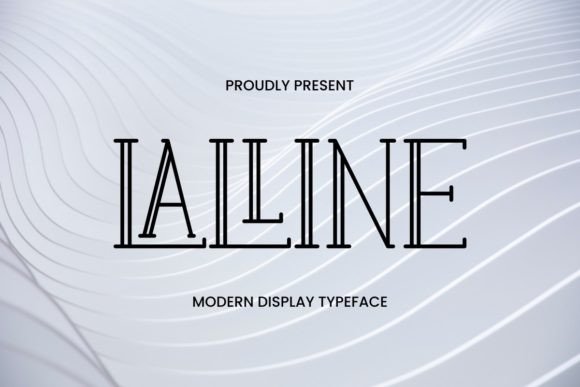
Unleash the captivating allure of Lalline, a modern Serif display font that will transform your creative projects into cinematic masterpieces. Experience the grandeur of Lalline, the font designed to elevate your designs and capture the essence of your storytelling. With its intricate details and flowing curves, Lalline is the ultimate choice for creating logos that command attention, printing that leaves a lasting impression, and book covers that intrigue and captivate.
Journey through a universe of creativity with Lalline, where titles dance off the page with elegance and sophistication. Let your imagination soar as you craft labels that exude a timeless charm, logotypes that embody the essence of your brand, and business needs that communicate professionalism and authority. Lalline is the font that breathes life into your branding, adding a touch of sophistication to your every endeavor.
Explore the boundless possibilities of Lalline, a font that seamlessly blends modernity with a touch of nostalgia. Whether you're designing for craft projects that showcase your unique style, sports designs that ignite passion, or sports business ventures that demand attention, Lalline is your trusted companion. Let your creativity shine through as you craft designs that leave an unforgettable impact.